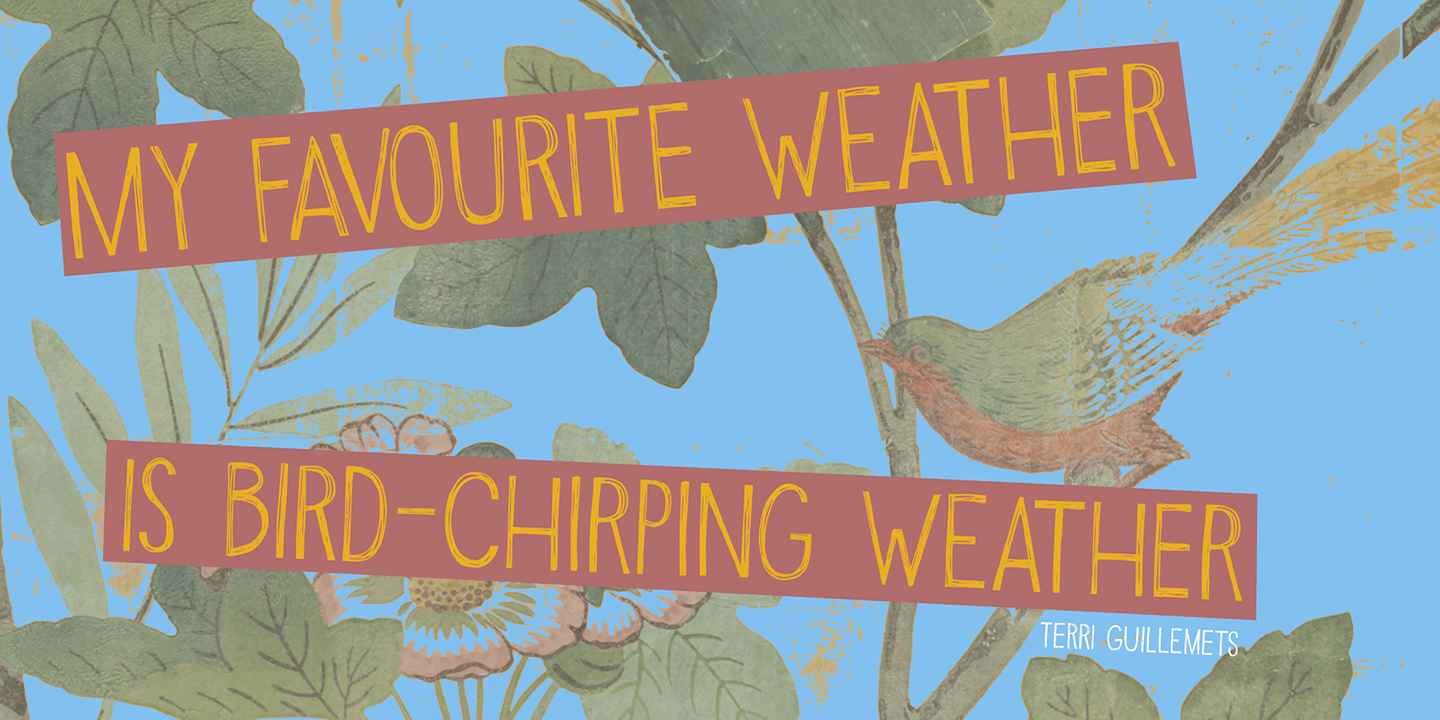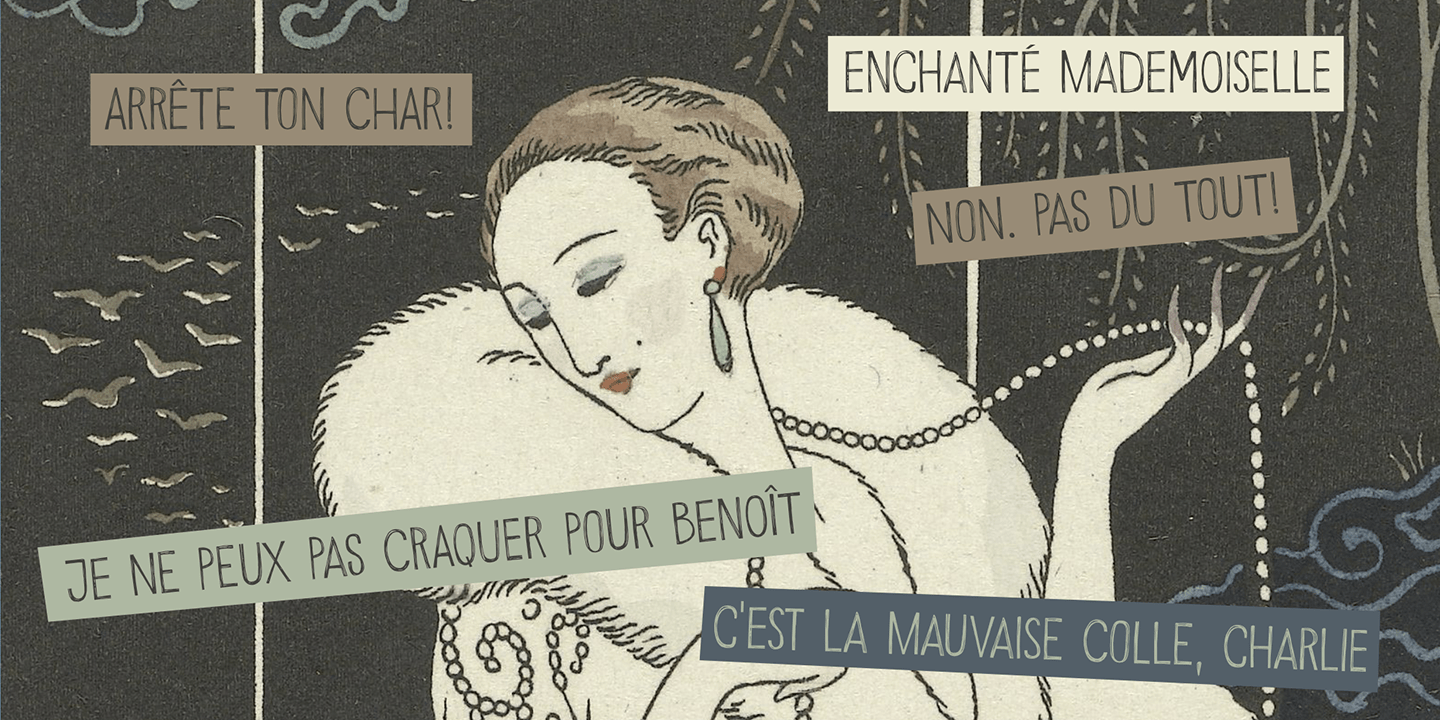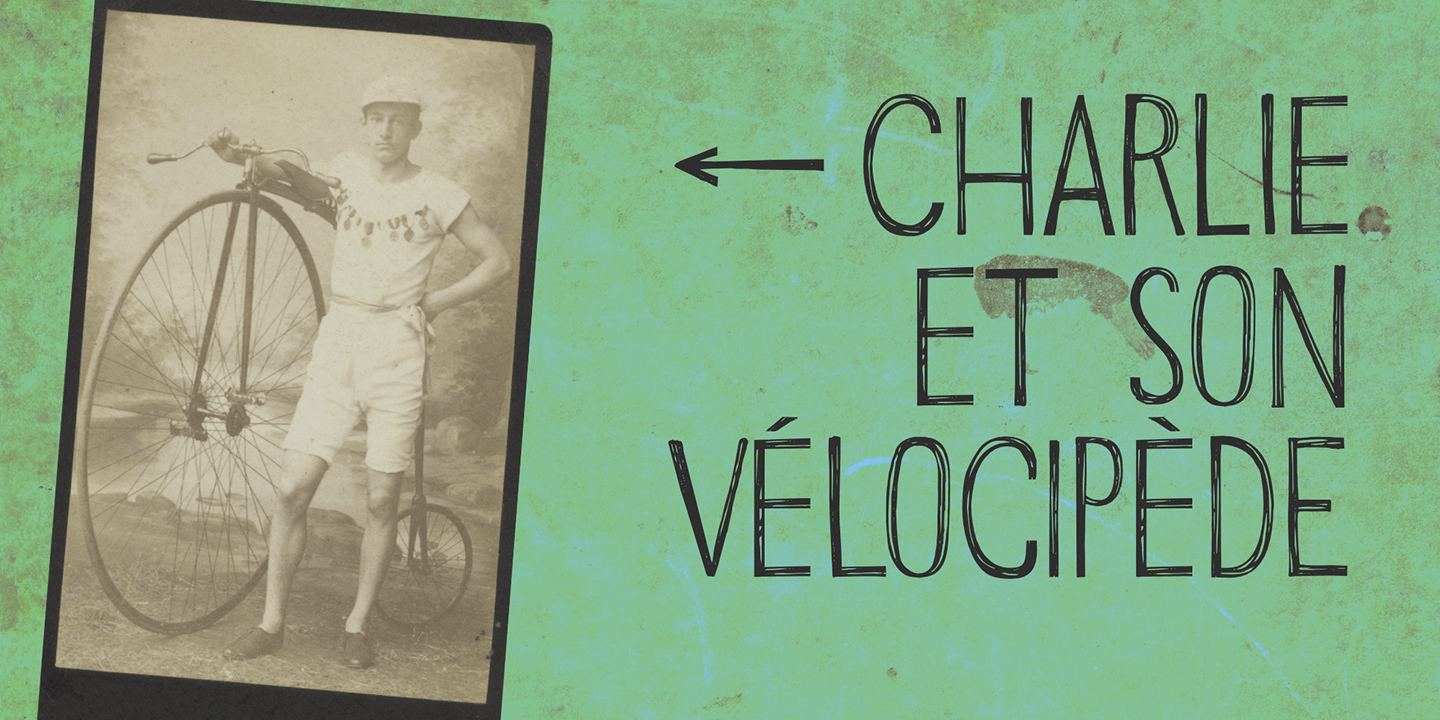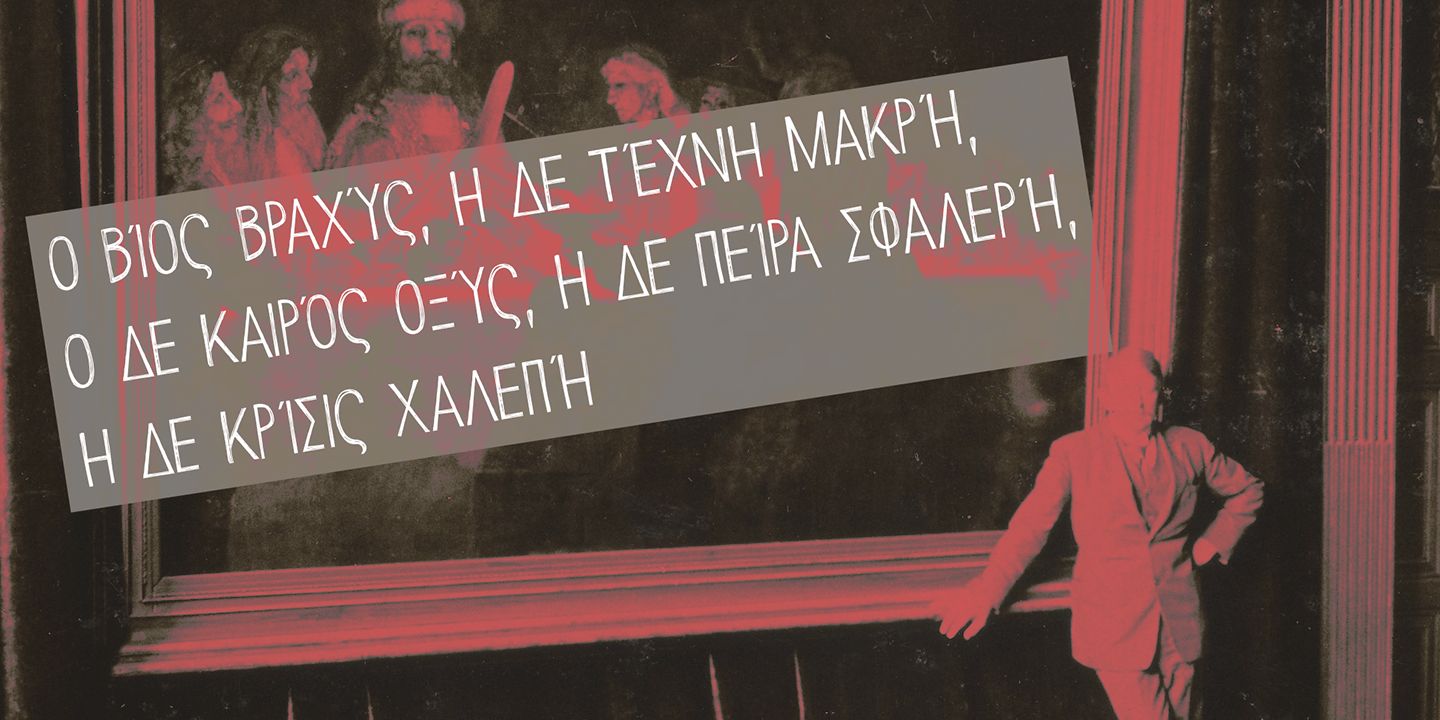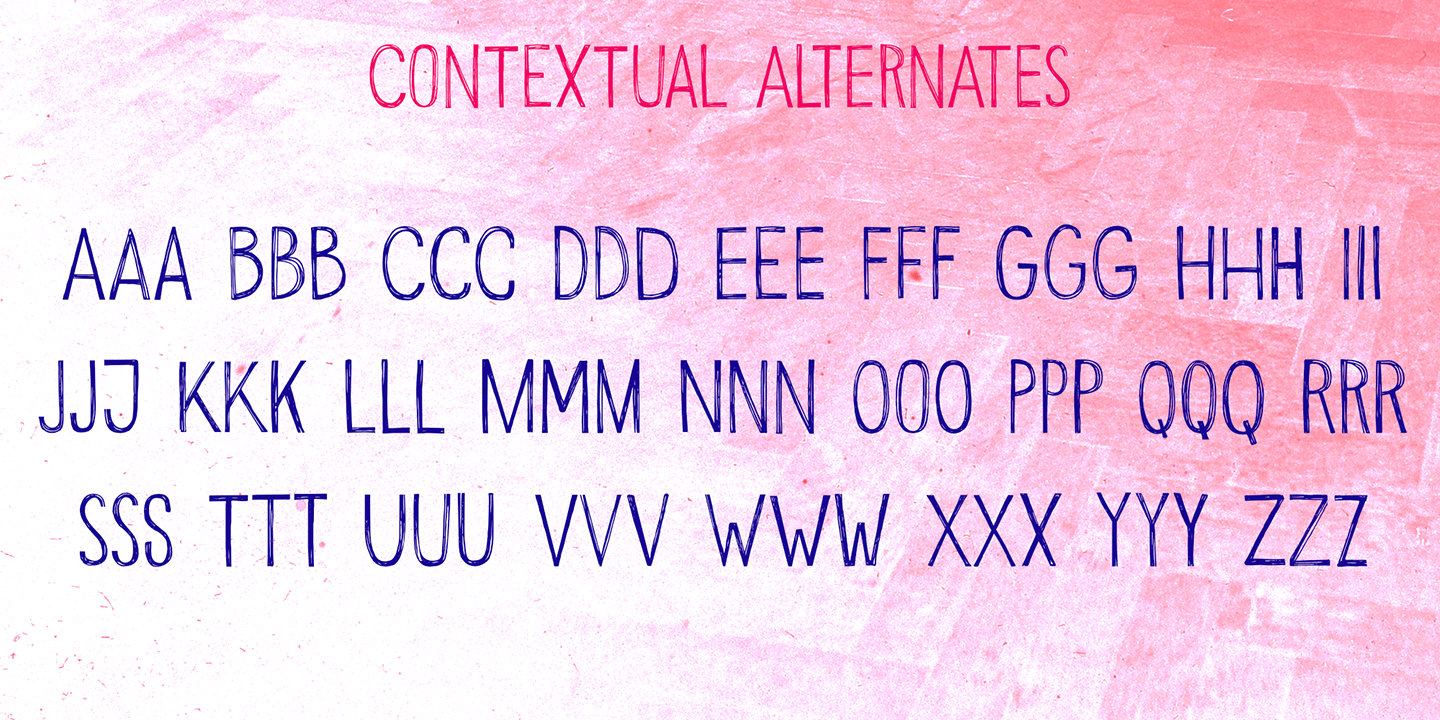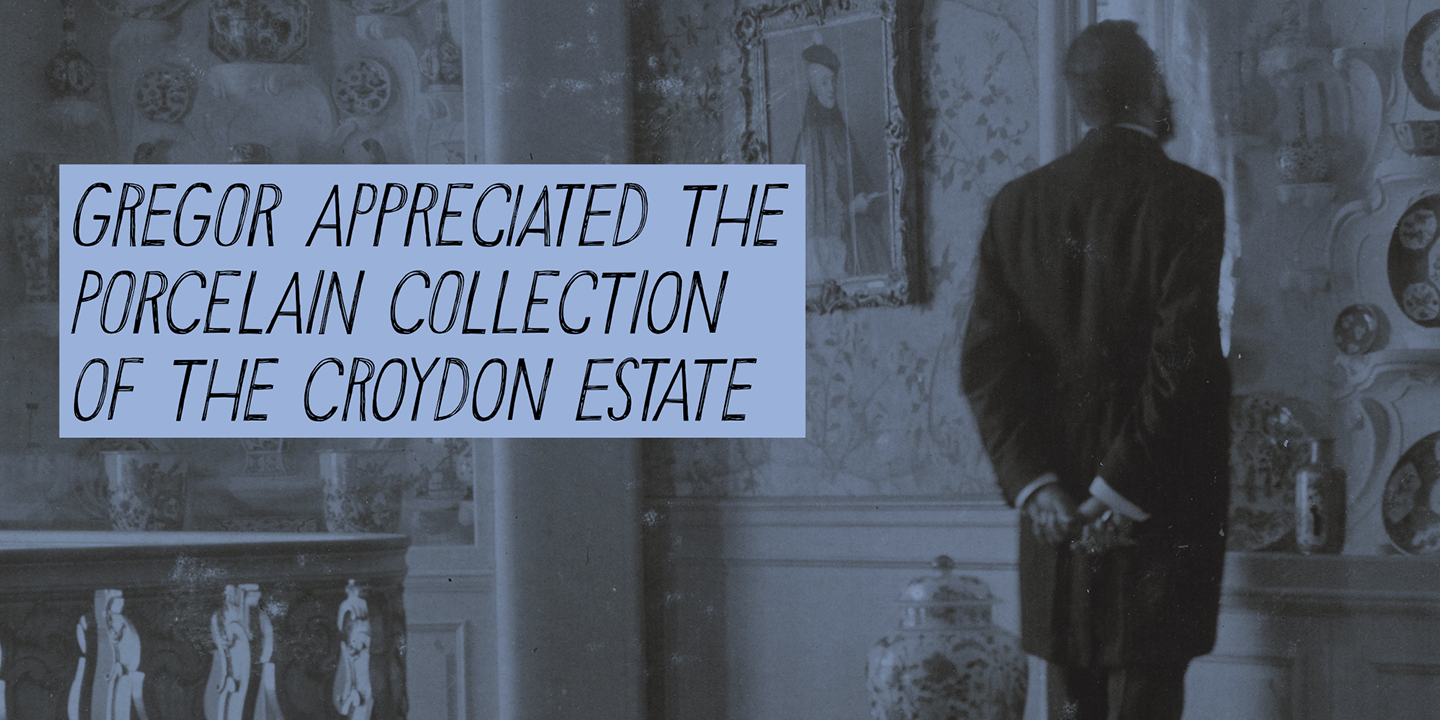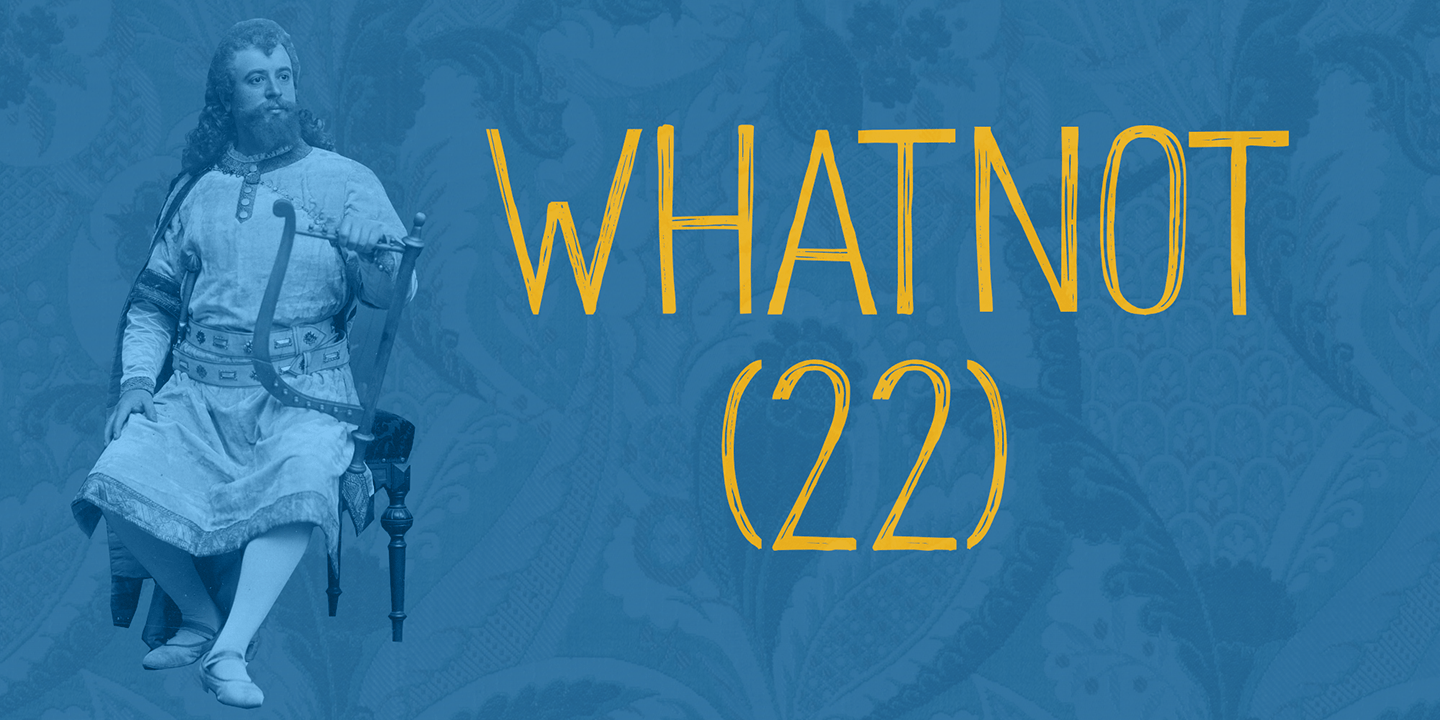
Whatnot 22
About Whatnot 22
In 2014 I made a font called Whatnot. I think I made with with a roller ball pen, but I am not sure, as it was a long timer ago. I have always liked Whatnot font and I think it deserves a second lease on life, so I made a new (and improved) version of…